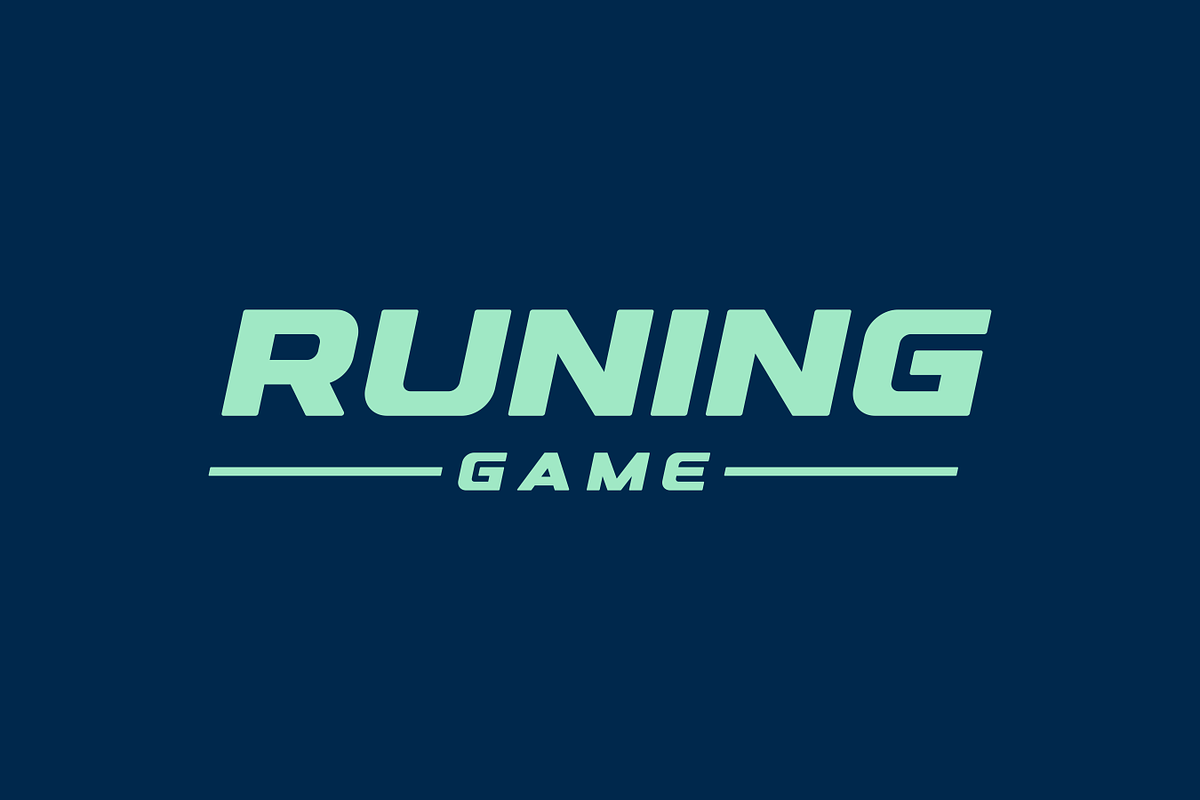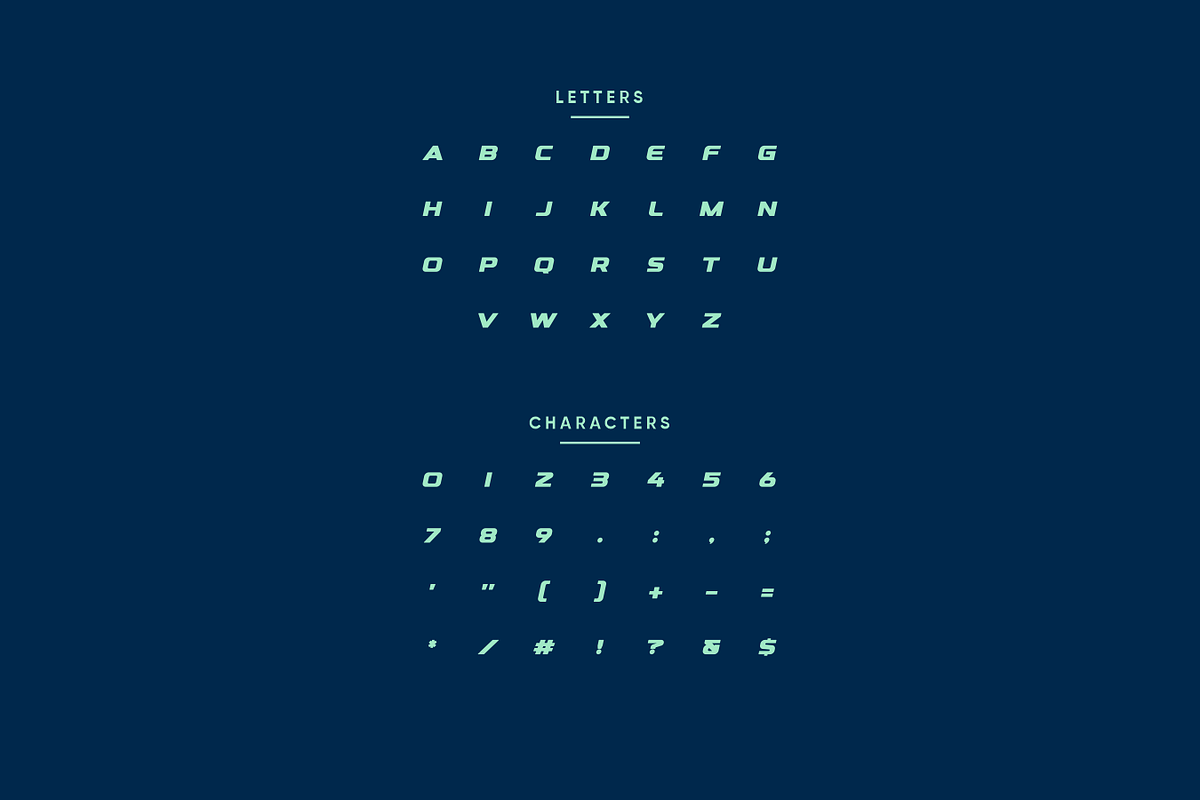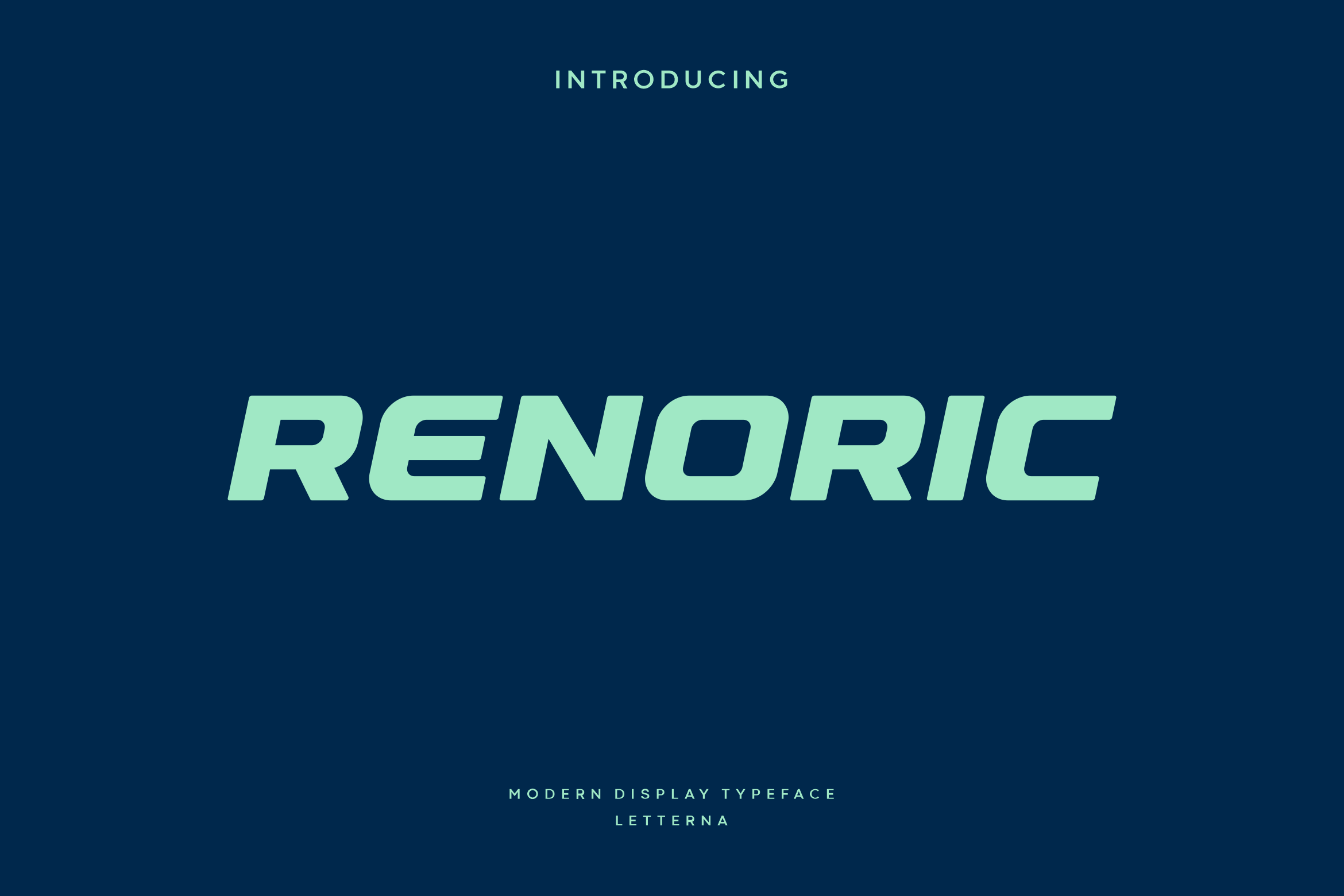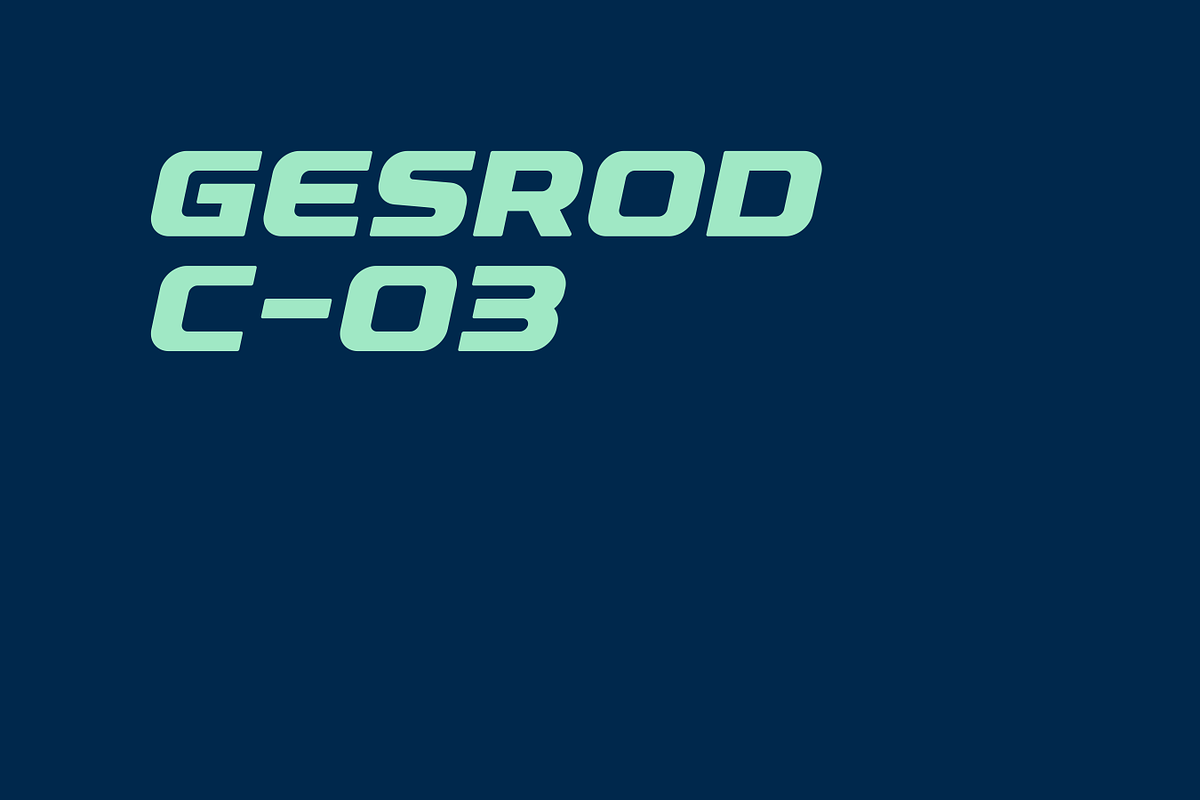
Renoric - Modern Sport Typeface
Renoric is a modern sports font built specifically for Branding, Headings, and more prominent typography needs. Renoric comes with a new and fresh style, it will make your design more memorable, it's perfect for adding this font to sports, tech, action and battle themes. Renoric was created for bold action style and a modern feel, so enjoy creating any project that will showcase your main ideas.